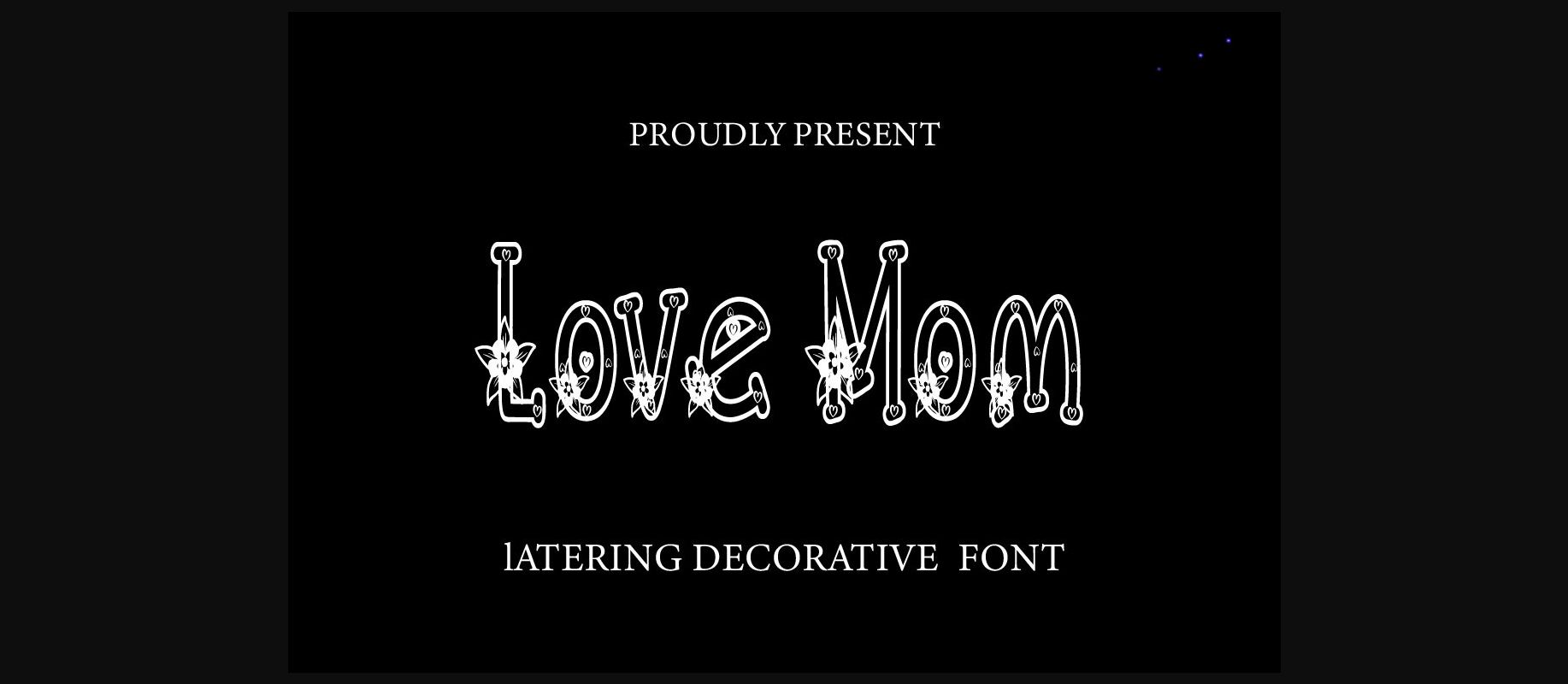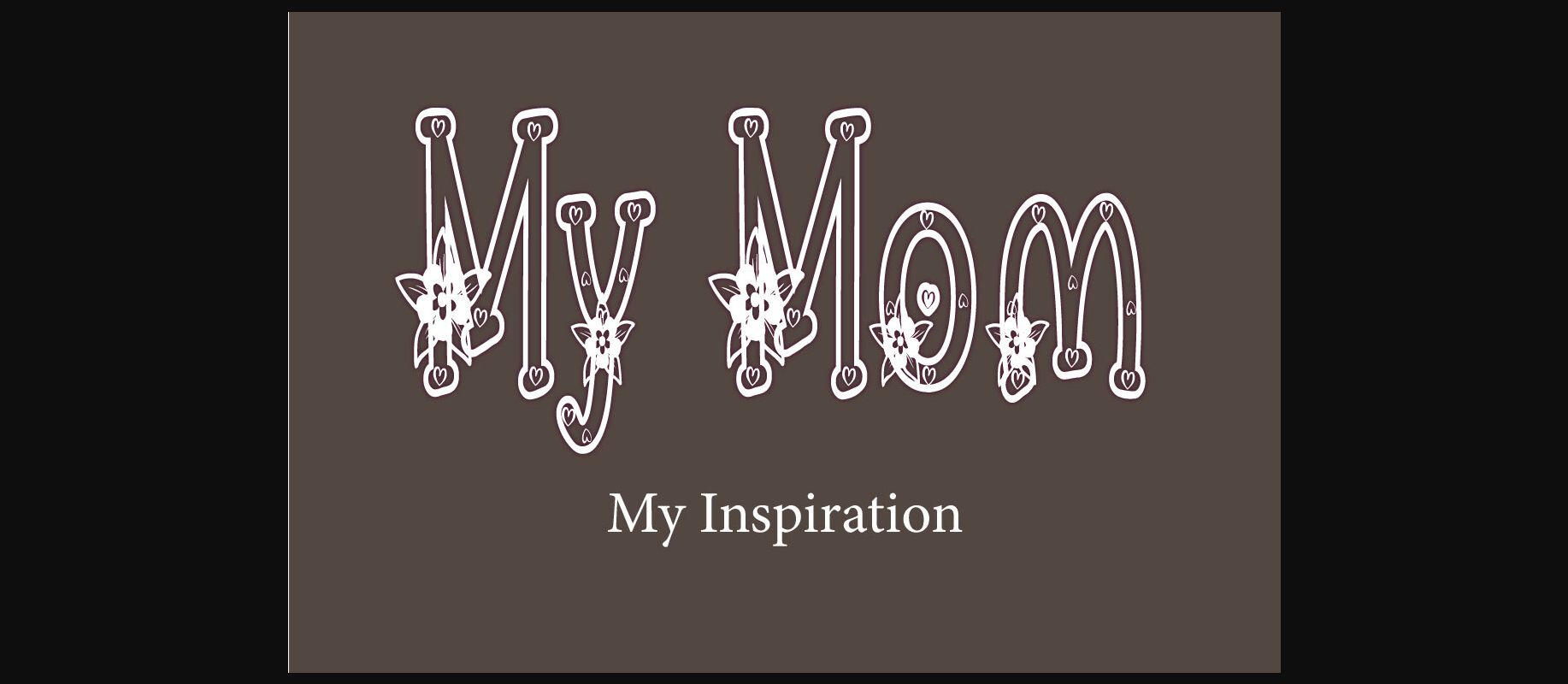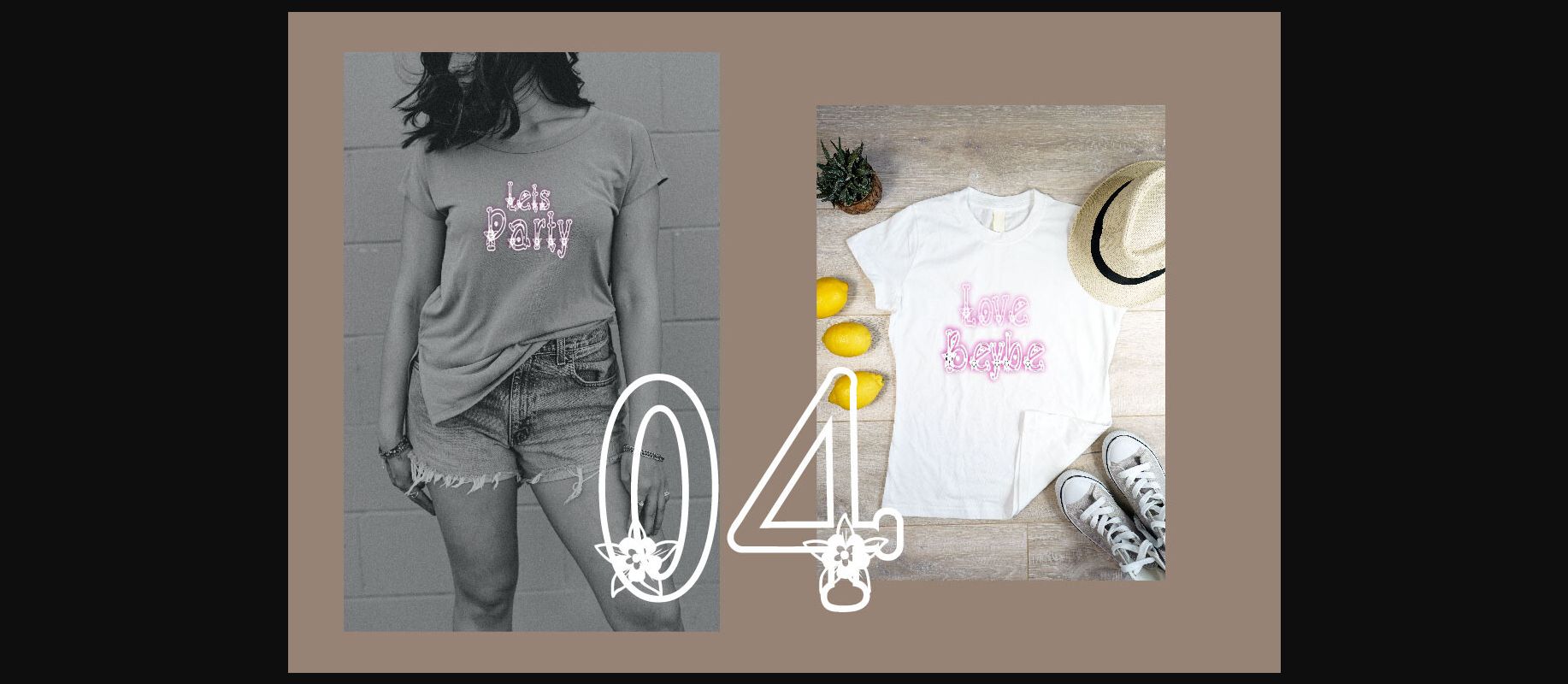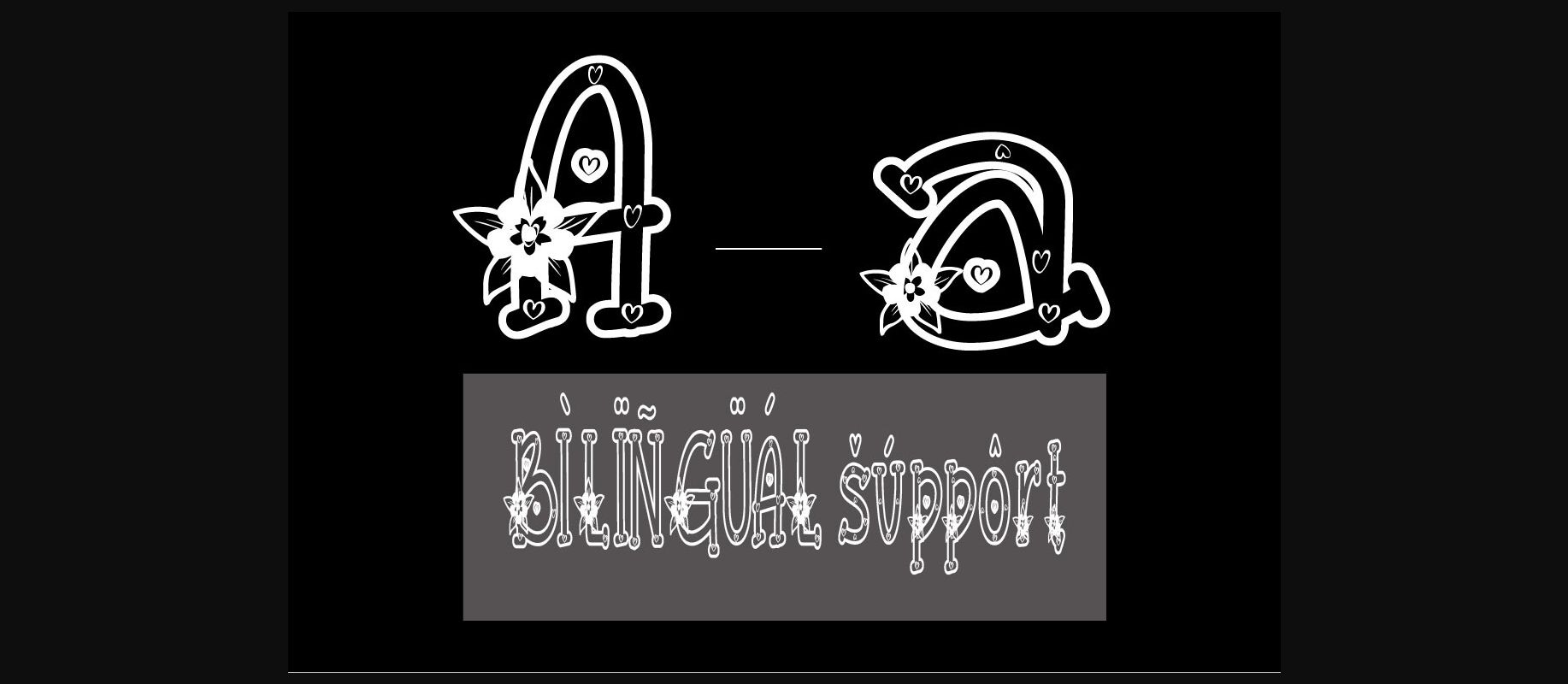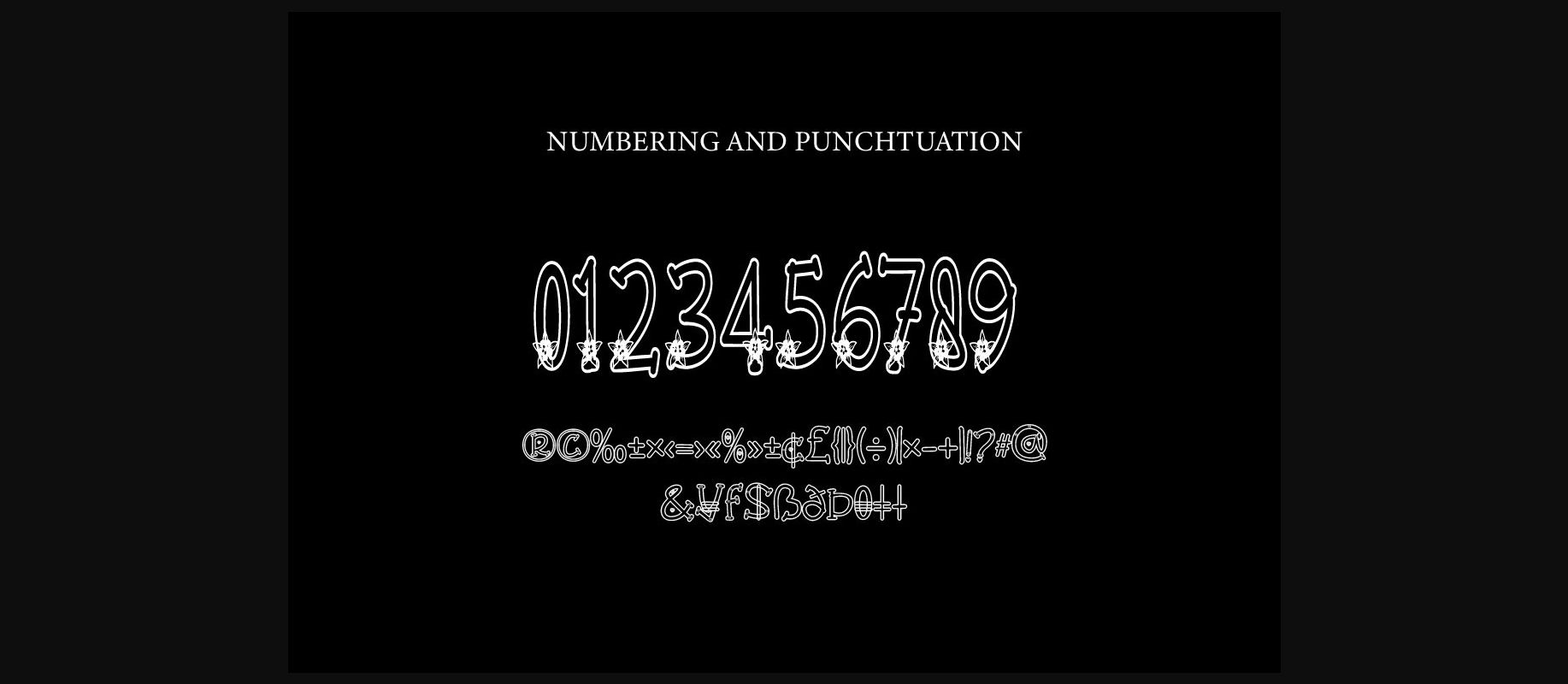
About Love Mom Font
Love Mom Font is a decorative font, featuring flower ornaments. It is perfect for your design and use it to create gorgeous wedding invitations, beautiful stationary art, eye-catching social media posts, and cute greeting cards.
Take your designs to the next level with Love Mom font